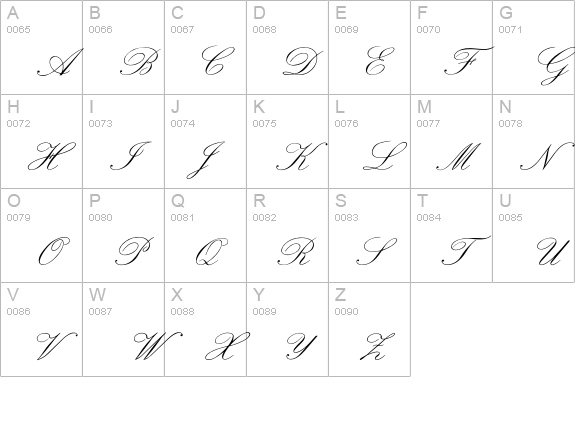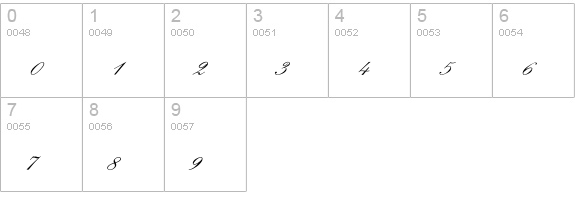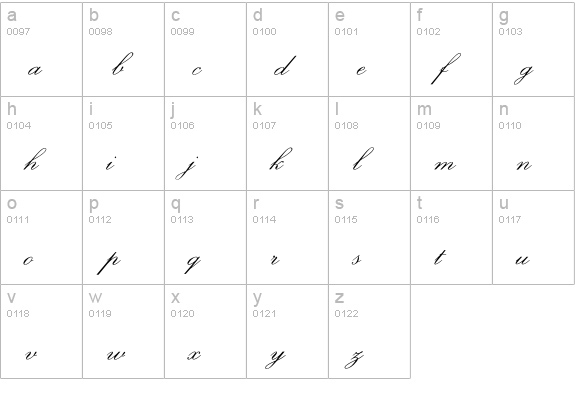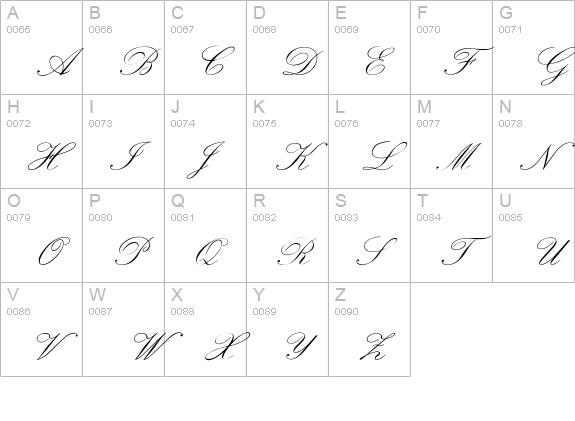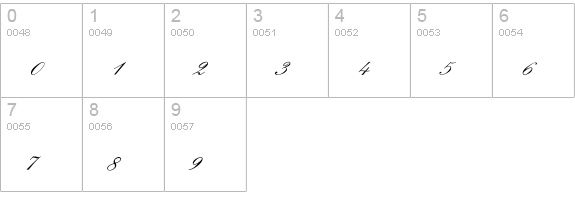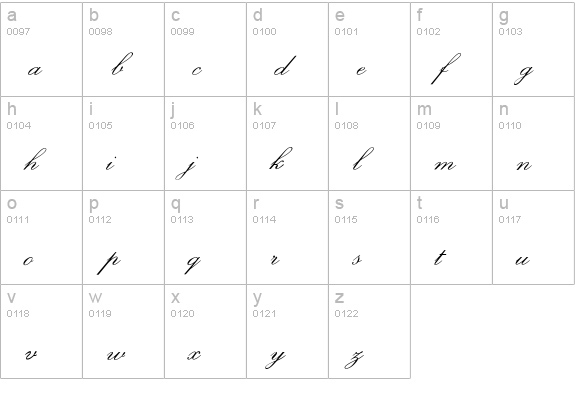
OPTIExcelsiorScript Font Details
OPTIExcelsiorScript is a stunning and elegant script font that exudes sophistication and charm. With its flowing curves and delicate strokes, this font is perfect for adding a touch of class to any design project. Whether you're creating wedding invitations, branding materials, or elegant packaging, OPTIExcelsiorScript is sure to make a lasting impression. The best part is that OPTIExcelsiorScript is available for free download at FontsMarket.com. This means you can easily access this beautiful font and use it in your projects without any cost. Don't miss out on the opportunity to enhance your designs with the timeless beauty of OPTIExcelsiorScript - download it today and elevate your creations to a whole new level.